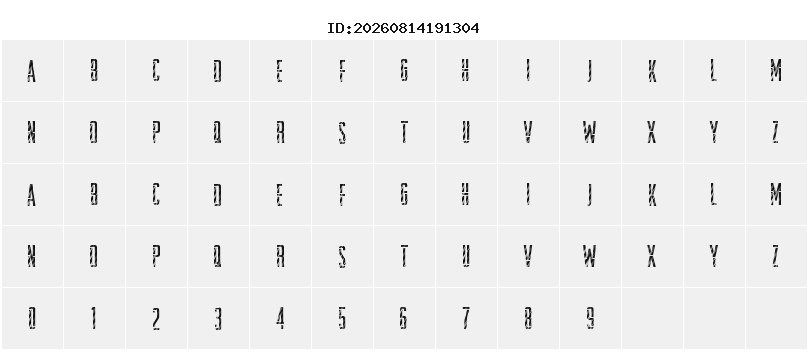
• Font Name: StencilDisco
• Designer: Max Infeld
• Manufacturer: Xerographer Fonts
• Description: Made in California by Xerographer Fonts
About StencilDisco.ttf
StencilDisco.ttf is a modern, elegant sans-serif font designed for ultimate readability and visual harmony. Perfect for branding, headlines, web design, and print materials.